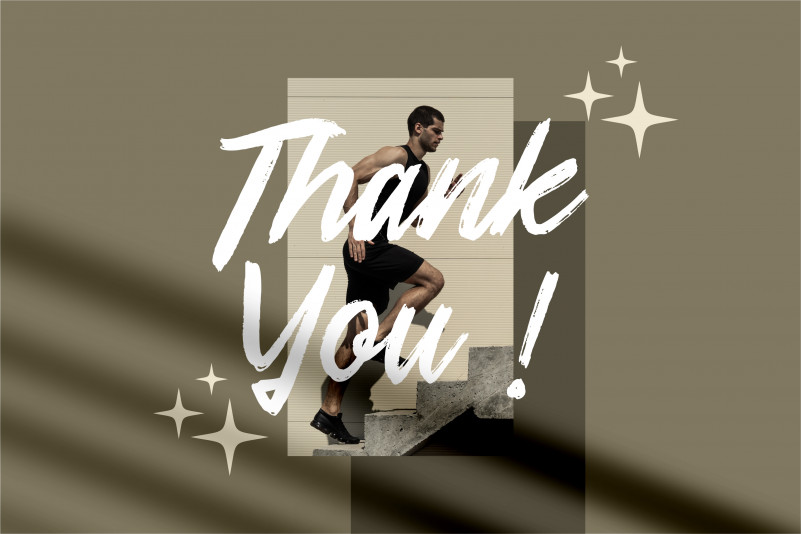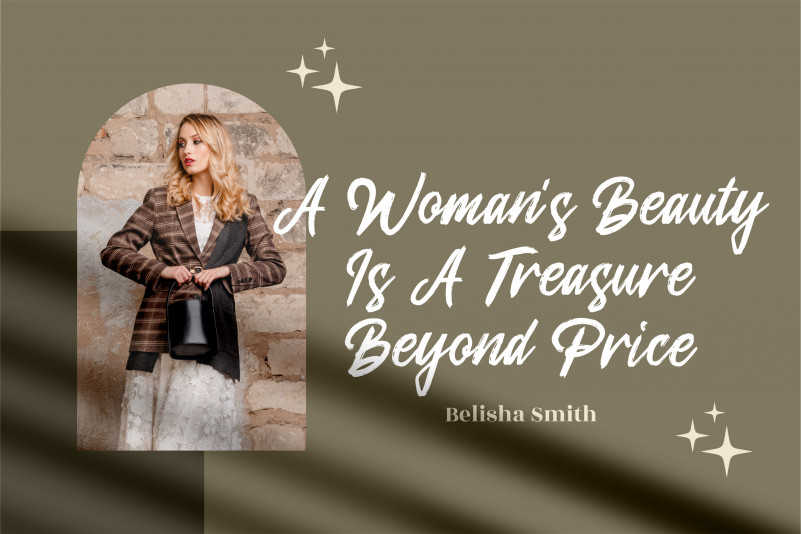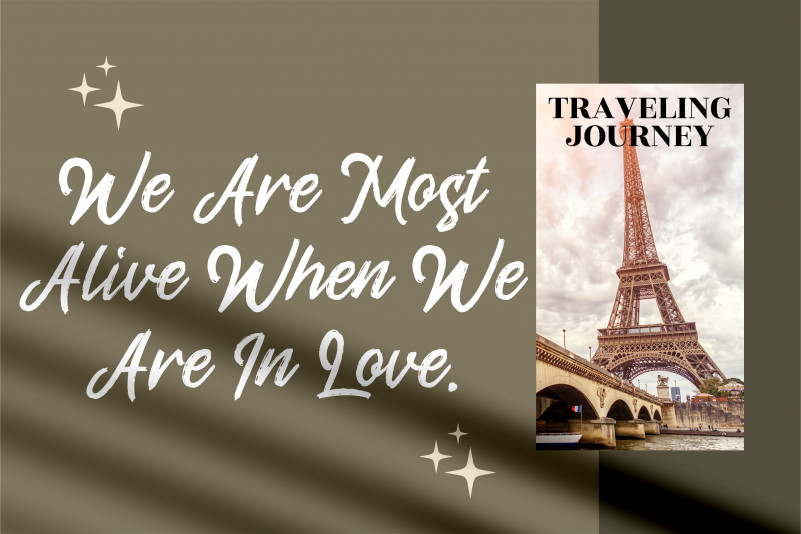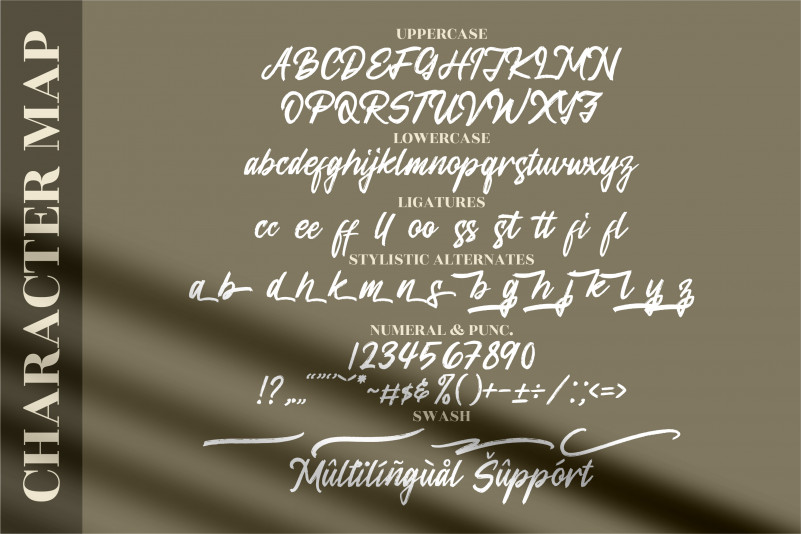
Collinsaber Font
Collinsaber Brush Font
It’s a handwritten font, suitable for any projects such as: logos, branding projects, homeware designs, product packaging, mugs, quotes, posters, shopping bags, t-shirts, book covers, name card, invitation cards, greeting cards, label, photography, watermark, special events, and all your other luxury projects that need a handwritten taste.